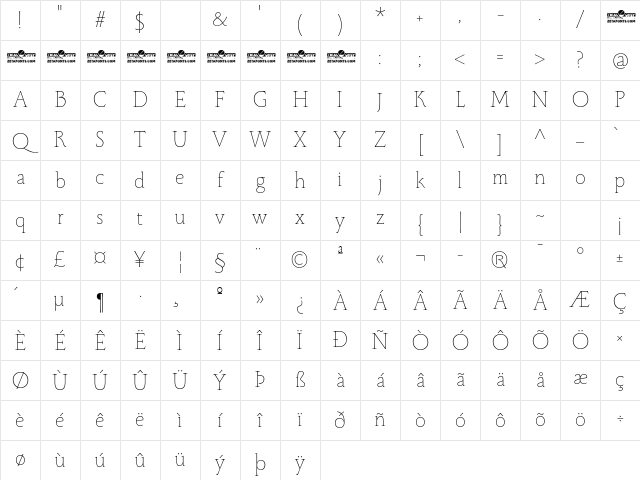
Monterchi Serif Trial carries the refined structure of traditional serif typography, with bracketed terminals and considered proportions that communicate credibility and craft. Its slender proportions lend an understated elegance to any composition.
Pro Tip: Use Monterchi Serif Trial with generous line-spacing for the most refined reading experience - its light weight benefits from room between lines.